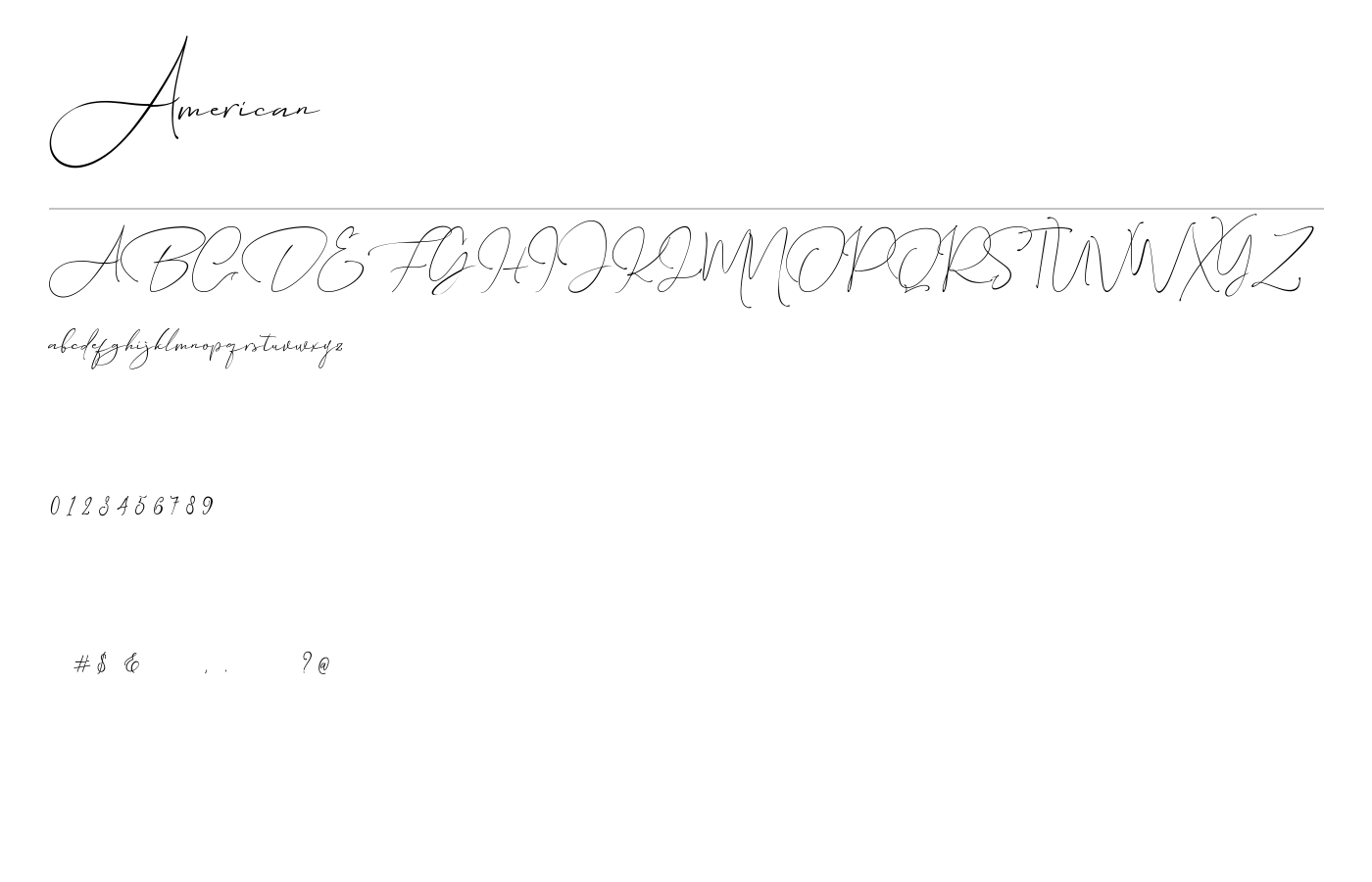
American Font is an elegant, delicate script typeface characterized by its thin, flowing lines and graceful letterforms that resemble refined handwriting. Its high contrast and airy design make it perfect for sophisticated branding, wedding invitations, and stylish editorial projects where a touch of luxury and personal flair is desired. This font shines best in large display uses, such as logos and headlines, where its intricate details can be fully appreciated.
American Font
About American Font
| Font family | American Font |
| Designer | Aldedesign 2018 |